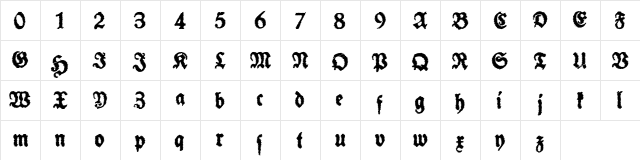
Schneidler Halb Fette Trash Regular
| Foundry | Paulo W, Intellecta Design |
Design Context for Schneidler Halb Fette Trash Typeface
Schneidler Halb Fette Trash takes a measured approach to typography — its balanced proportions and neutral character make it a reliable workhorse for both digital and print work.